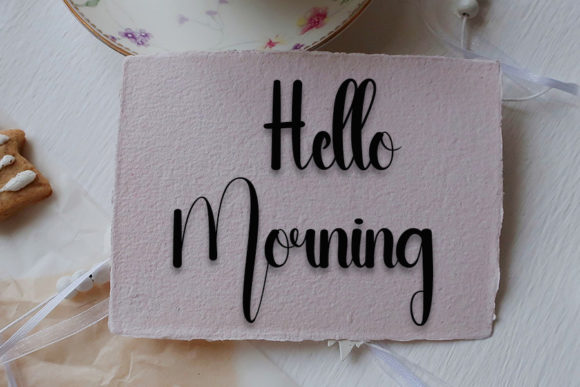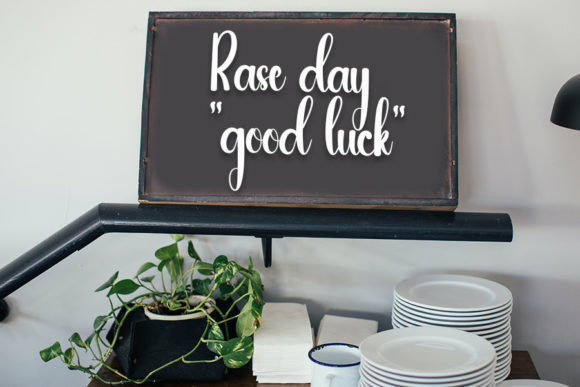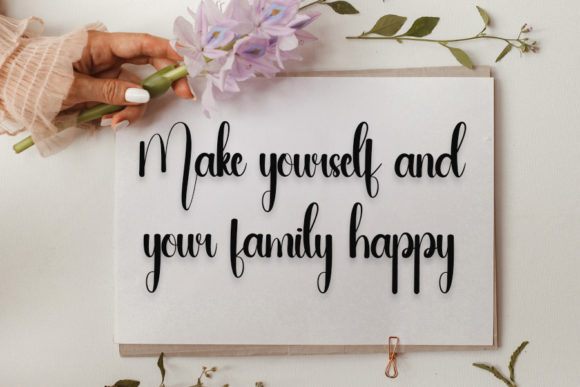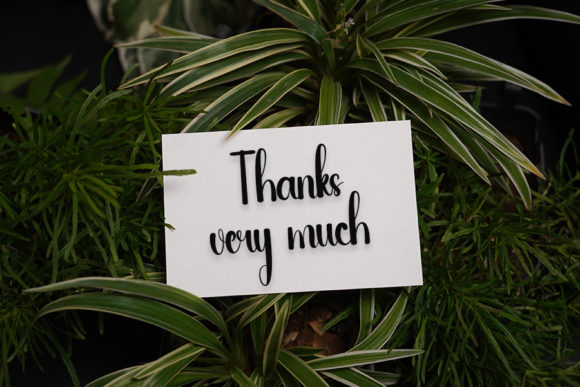
Introduction to Monday is Fun Font
Monday is Fun is a sweet, whimsical and flowing script font.
Featuring characters that dance along the baseline, this font will add a luxury spark to any design project that you wish to create .
Key Features of Monday is Fun Font